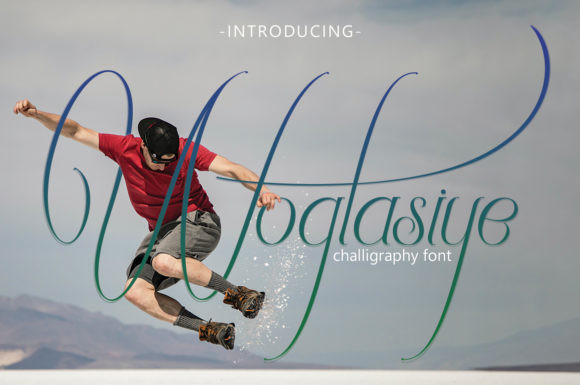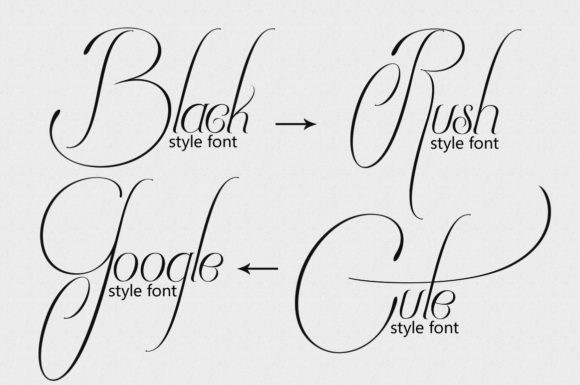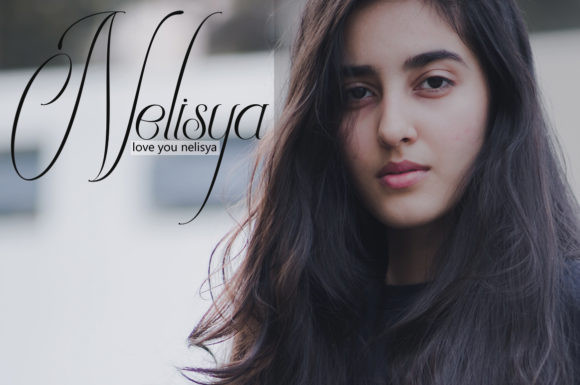
Wogtasiye Font
Wogtasiye feels equally charming and elegant. This stunning handwritten font is a stylish homage to classic calligraphy. It features a varying baseline, smooth lines, gorgeous glyphs and stunning alternates.